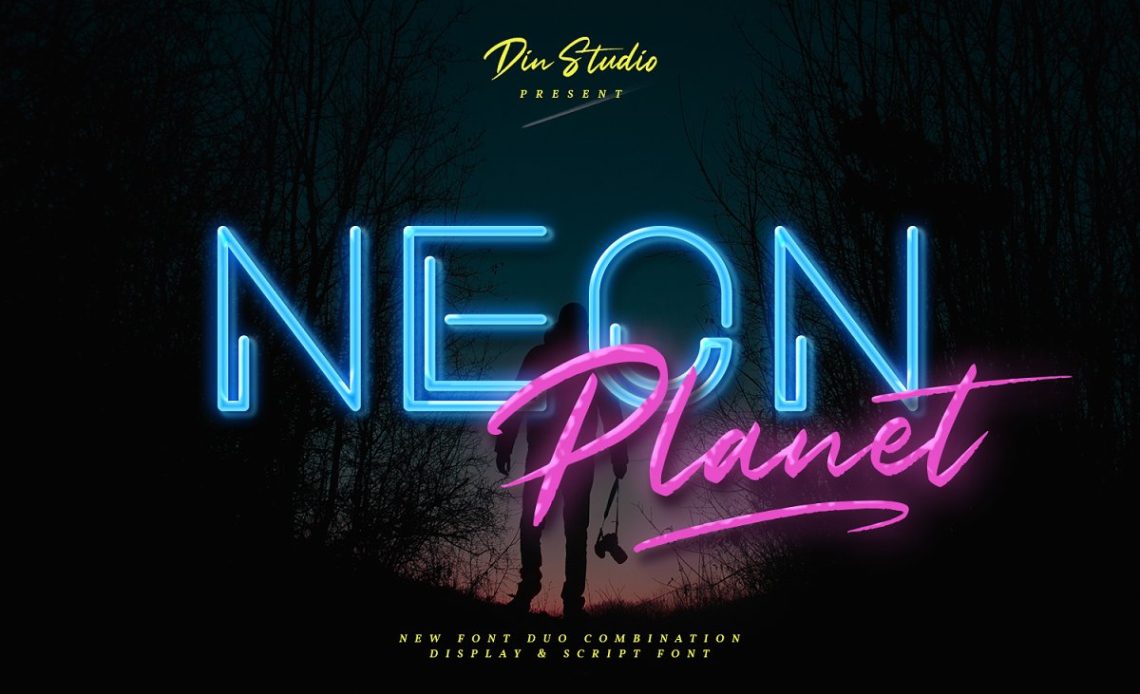
Looking for the perfect font to elevate your design projects? Look no further than Neon Planet - Font Duo, created by the talented Donis Miftahudin. This modern and futuristic font duo is the ideal choice for anyone looking to add a touch of retro, modern, and casual vibes to their work.
Neon Planet is a powerful font duo that combines neon shape design with brush textured handwritten elements. This unique combination is sure to make your design project stand out from the crowd. With file formats including OTF, TTF, and WOFF, you'll have plenty of options for using this font on a variety of design projects.
One of the best features of Neon Planet is its versatility. This font duo is suitable for any project that needs a modern and stylish touch. Whether you're creating posters, banners, logos, book covers, headings, printed products, merchandise, or social media content, Neon Planet is the perfect choice. And with accents, multilingual characters, PUA encoding, numerals, and punctuations included, you'll have all the tools you need to create stunning designs.